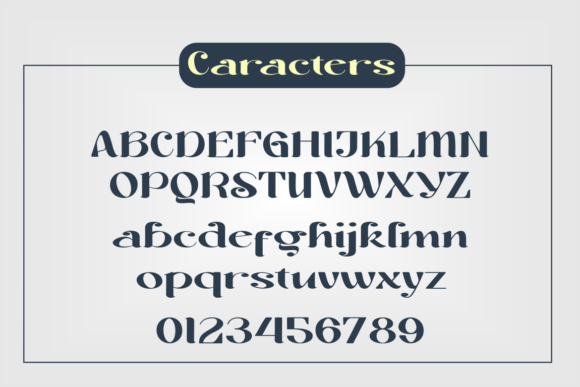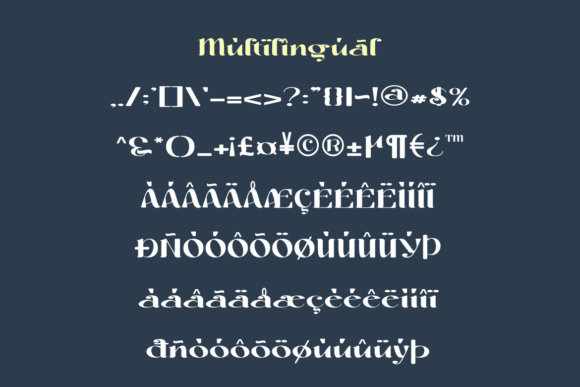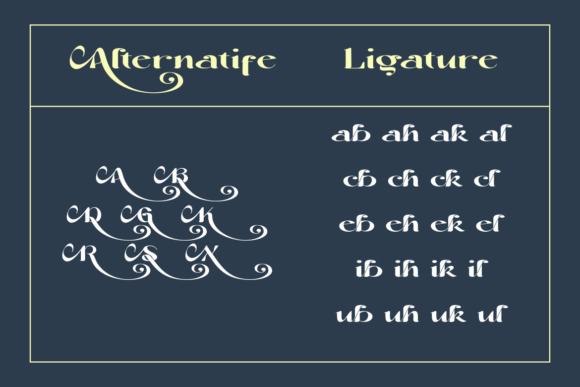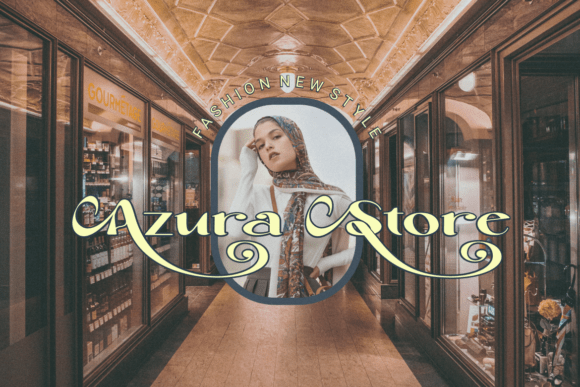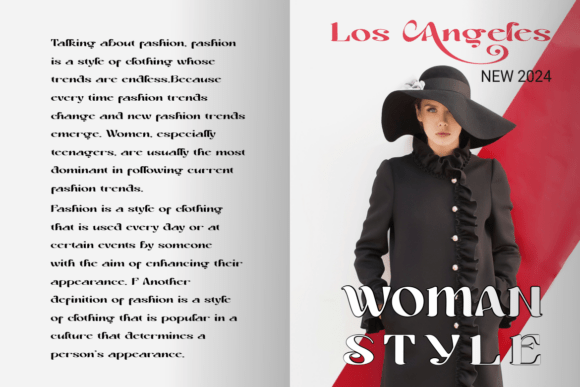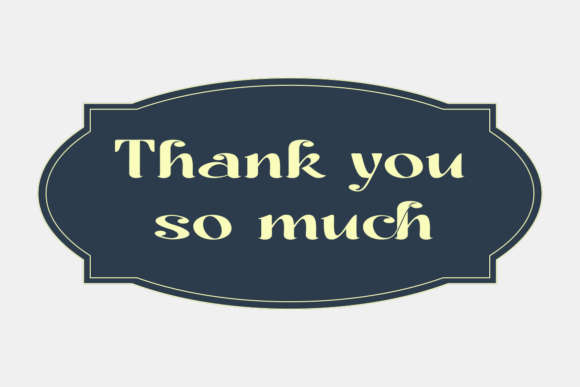
Introducing Azura Font: A Timeless Vintage Display Font
Are you looking for a font that can transport your audience to an era of classic craftsmanship? Look no further than Azura, a stunning vintage display font that balances heritage aesthetics with modern precision. This beautiful typeface features elegant, sweeping swashes and unique curled terminals, making it an exceptional choice for high-end labels, boutique branding, and nostalgic poster designs.
The Perfect Blend of Heritage and Modernity
Azura Font is designed to evoke a sense of nostalgia and sophistication. Its elegant curves and bold presence make it perfect for designers and crafters who want to create typography that feels both prestigious and hand-crafted. Whether you are designing for a legacy brand or an artisanal product, Azura’s unique features ensure that your typography stands out from the crowd.
Elegant Swashes and Unique Terminals
One of the standout features of Azura Font is its elegant, sweeping swashes. These beautiful flourishes add a touch of sophistication and elegance to any design, making it perfect for high-end labels and boutique branding. The unique curled terminals also add a touch of whimsy and playfulness, making Azura a versatile font that can be used in a variety of design applications.
Perfect for High-End Labels and Boutique Branding
Azura Font is an exceptional choice for high-end labels and boutique branding. Its sophisticated curves and bold presence ensure that your typography feels both prestigious and luxurious. Whether you are designing a logo, label, or packaging for a high-end product, Azura Font is the perfect choice. Its elegant swashes and unique terminals will add a touch of sophistication and elegance to your design, making it stand out from the crowd.
Great for Nostalgic Poster Designs
Azura Font is also perfect for nostalgic poster designs. Its vintage aesthetic and elegant curves make it a great choice for creating posters that evoke a sense of nostalgia and classic craftsmanship. Whether you are designing a poster for a vintage-themed event or a retro-style advertisement, Azura Font is the perfect choice. Its bold presence and elegant swashes will add a touch of sophistication and elegance to your design, making it a standout.
Why Choose Azura Font?
So why choose Azura Font for your next design project? Here are just a few reasons:
- Unique and elegant design: Azura Font features elegant, sweeping swashes and unique curled terminals that make it stand out from other fonts.
- Versatile: Azura Font can be used in a variety of design applications, from high-end labels and boutique branding to nostalgic poster designs.
- Sophisticated and luxurious: Azura Font’s sophisticated curves and bold presence ensure that your typography feels both prestigious and luxurious.
- Use it sparingly: Azura Font is a bold and elegant font, so use it sparingly to add emphasis to your design.
- Experiment with different sizes: Azura Font looks great in a variety of sizes, from large headings to smaller text.
- Pair it with other fonts: Azura Font pairs well with other fonts, such as serif or script fonts.
In conclusion, Azura Font is a stunning vintage display font that balances heritage aesthetics with modern precision. Its elegant swashes and unique curled terminals make it an exceptional choice for high-end labels, boutique branding, and nostalgic poster designs. Whether you are designing for a legacy brand or an artisanal product, Azura Font’s sophisticated curves and bold presence ensure that your typography feels both prestigious and hand-crafted. So why wait? Download Azura Font today and start creating beautiful, timeless designs.